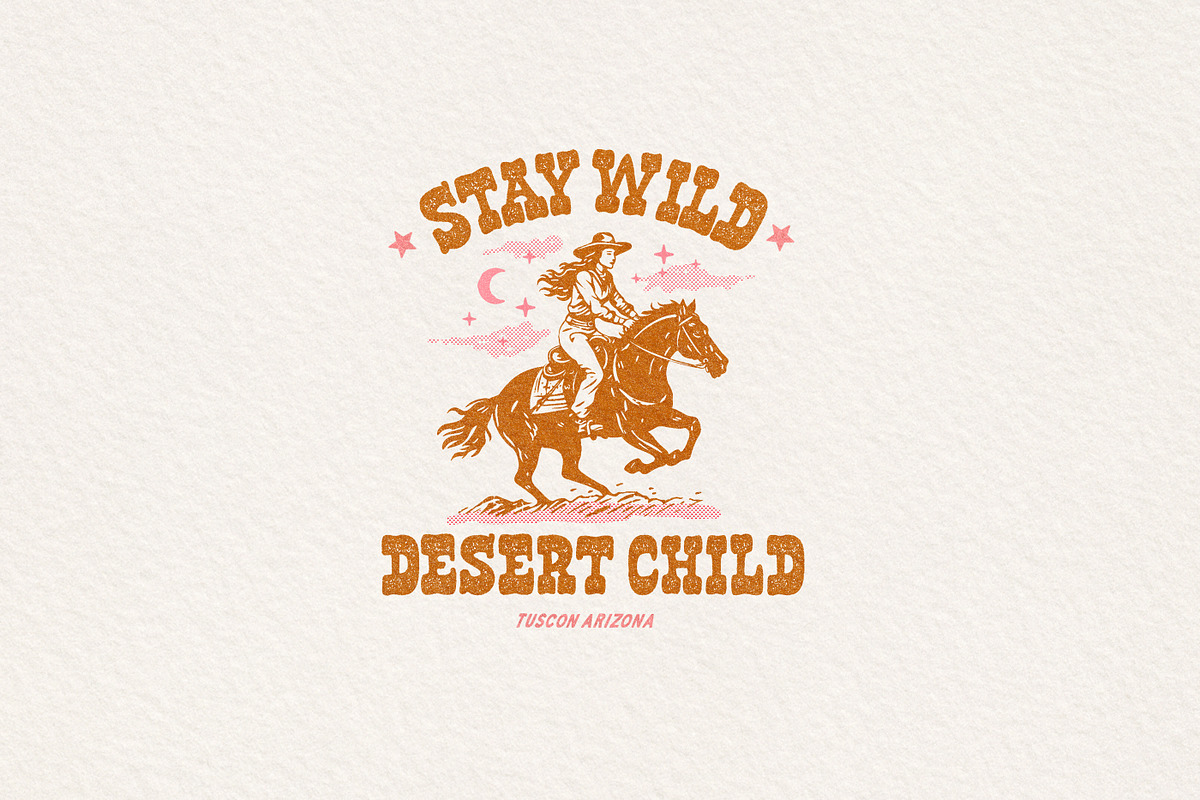
Bronco Belle is a bold and playful, retro-vintage western typeface thats rugged, rustic and ready for some fun. Available in Regular and Wide, the typeface has 4 variants : Regular, Rough-edged, Grungy and Grungy with rough edges.